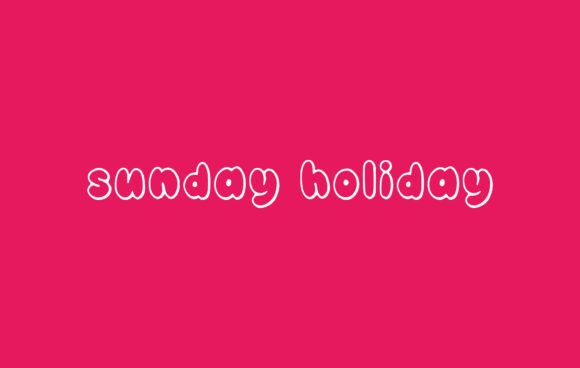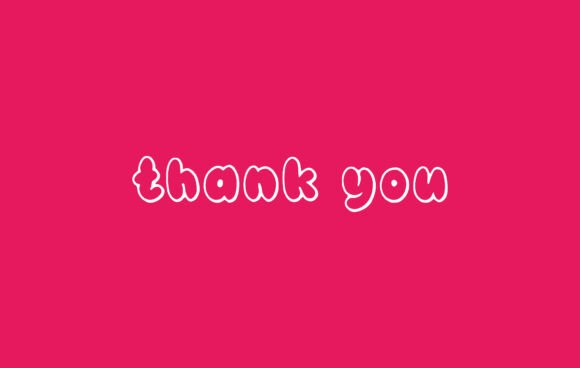
Introduction to Fluxprint Font
FluxPrint font is an authentic handwritten font with a romantic touch.
Key Features of Fluxprint Font
Why Choose Fluxprint Font?
Fluxprint Font offers exceptional quality and versatility, making it a valuable addition to your design toolkit. Whether you’re creating for personal projects or commercial use, Fluxprint Font delivers professional results.